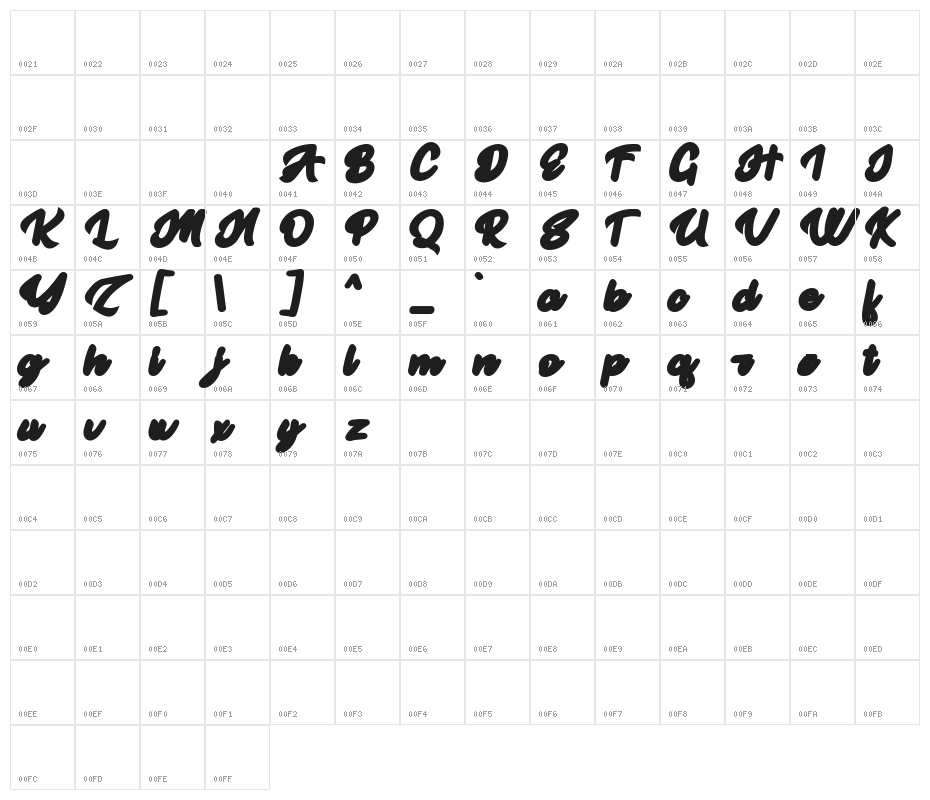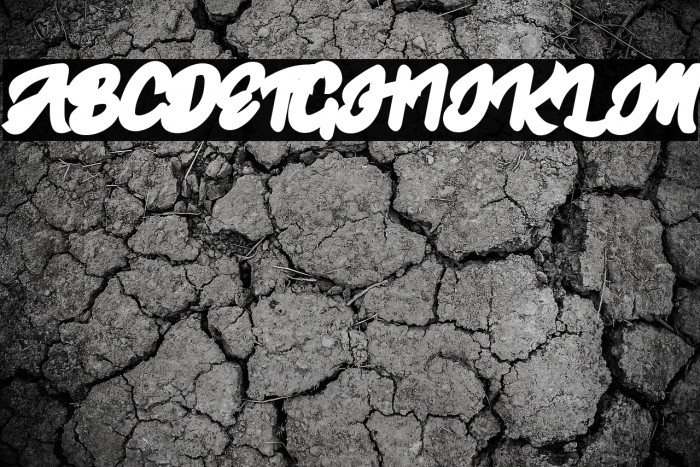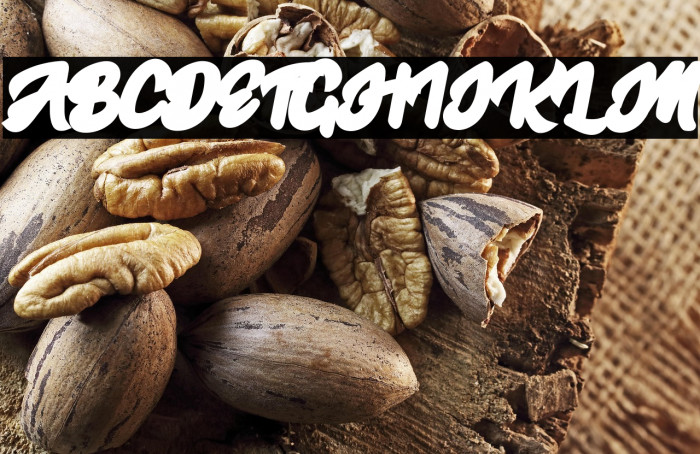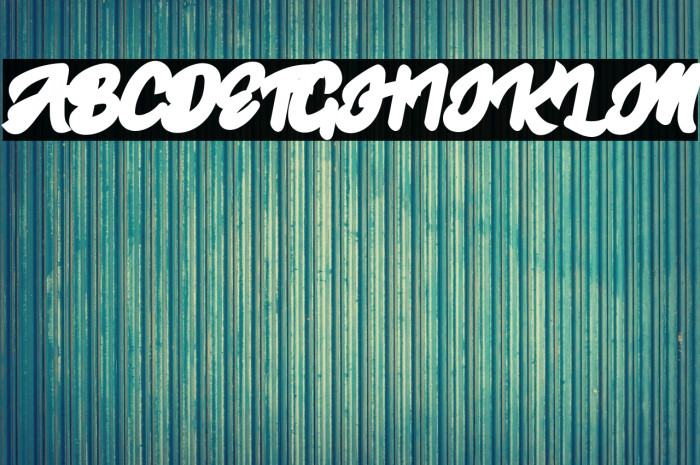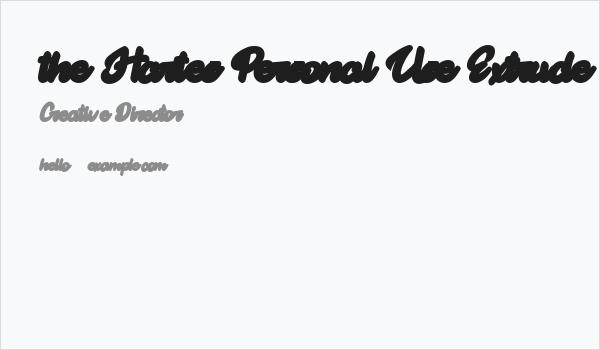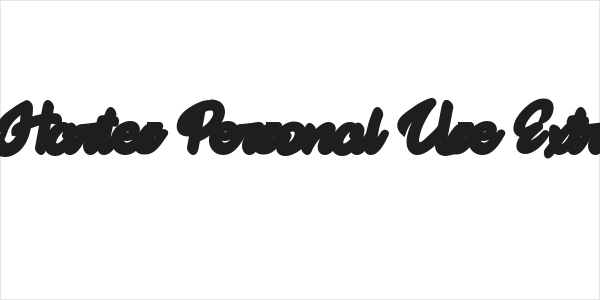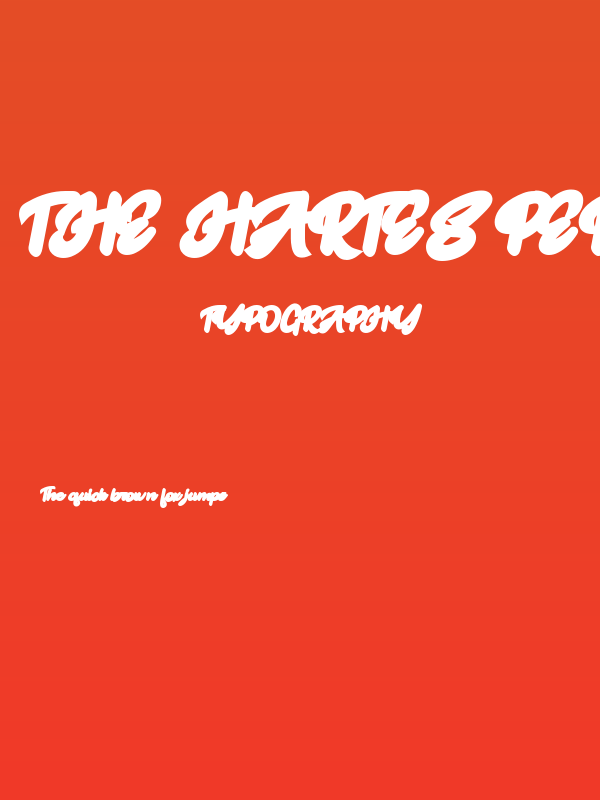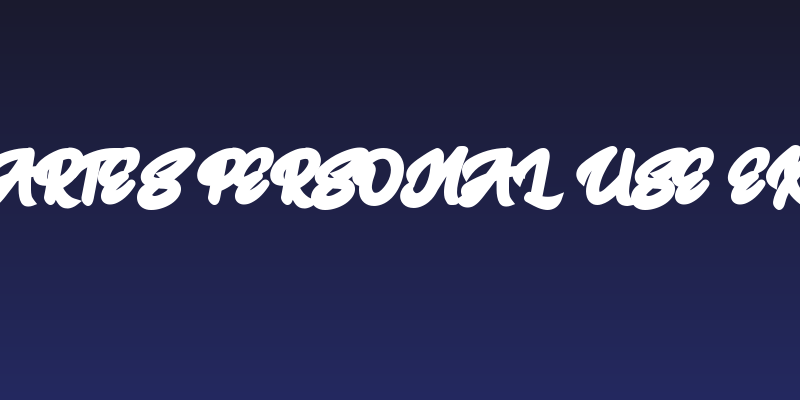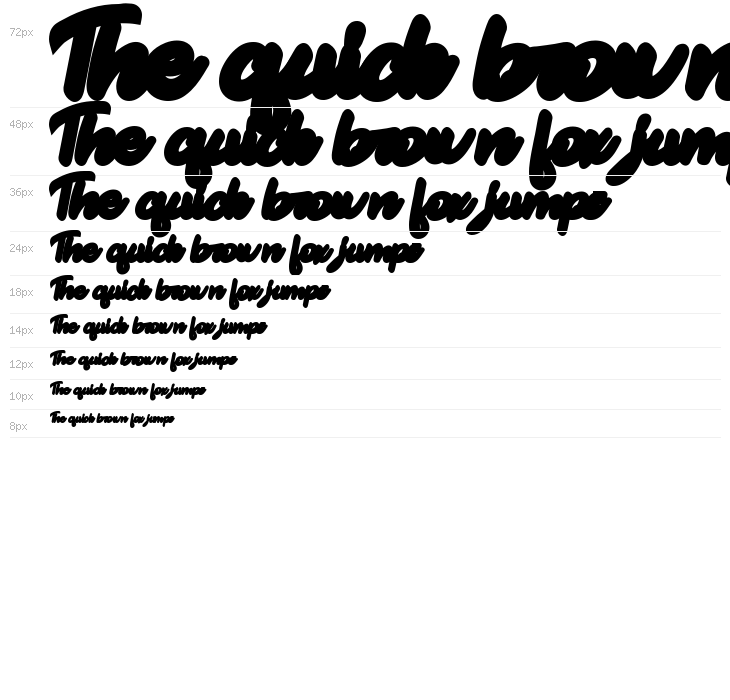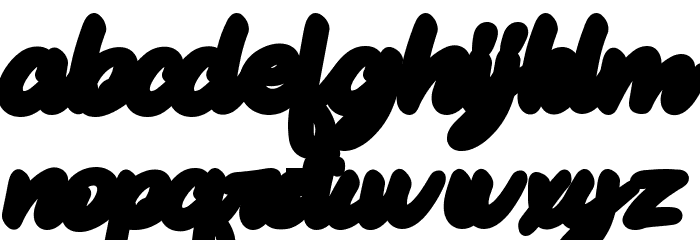
the Hartes Personal Use Extrude Font
the Hartes Personal Use Extrude Description
This font features a bold, script style with a strong, flowing appearance. The characters are interconnected, creating a sense of continuity and movement. The strokes are thick and consistent, giving the font a robust and impactful look. The uppercase and lowercase letters maintain a cohesive style, with rounded edges and smooth curves. This font exudes a modern and artistic flair, making it suitable for creative and expressive designs. The overall impression is dynamic and energetic, perfect for making a statement.
| Proposed Projects | Ideal for branding, logos, posters, and creative design projects that require a bold and artistic touch. |